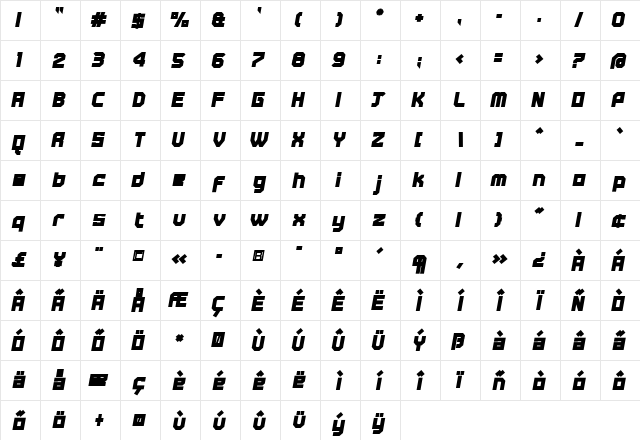
Tremble Ultra
Design Context for Tremble Typeface
Tremble offers clean, dependable letterforms without strong stylistic allegiance, making it a practical choice for designers who need flexibility.